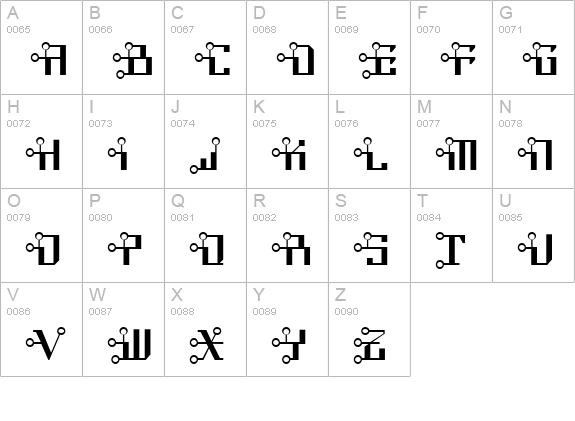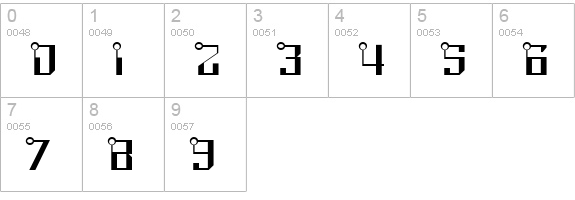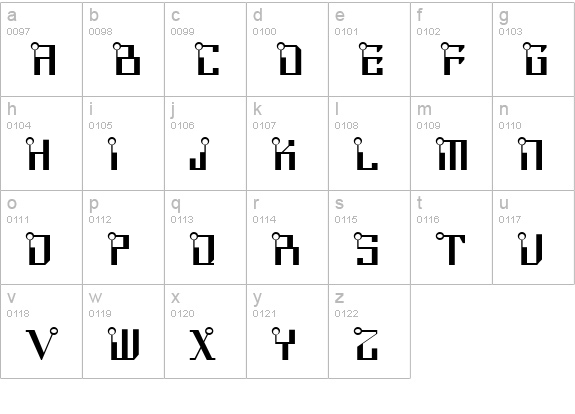
Circuit Bored NF font is a unique and modern typeface that combines sleek lines with a futuristic aesthetic. Its bold and edgy design makes it perfect for technology-related projects, gaming, or any creative work that requires a standout font. The sleek and sharp edges of Circuit Bored NF font give it a distinctive look that will make your designs stand out. Best of all, Circuit Bored NF font is available for free download at FontsMarket.com. This means you can easily access this striking font and use it in your projects without any cost. Whether you're a designer, artist, or creator looking for a font that exudes a modern and cutting-edge vibe, Circuit Bored NF font is the perfect choice. Download it today and elevate your designs with this eye-catching typeface.